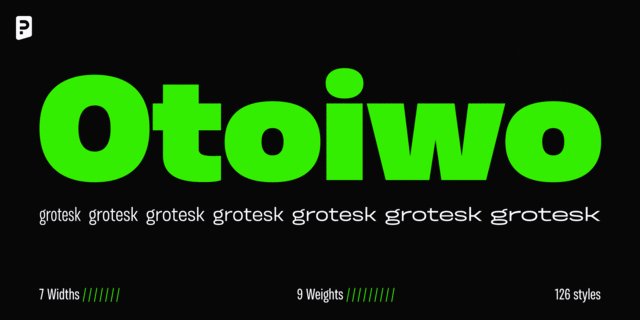
Lviv Towers (37 fonts)
This grotesque typeface has unmatched personality and charisma. The idea of its creation was influenced by old shop signs in Lviv and theater posters of the 19th century. The font is perfect for an exquisite product with a rich taste and unforgettable aroma. Designed by Victor Fedyuk and Kyrylo Tkachov in 2024.